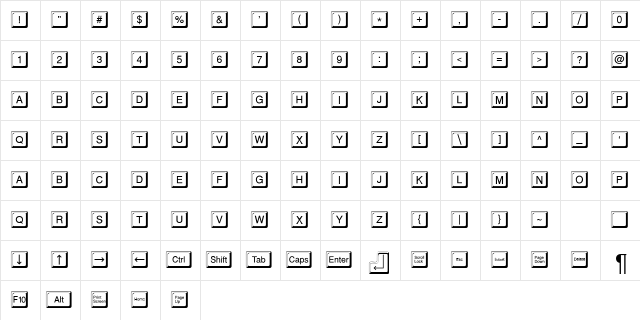
KeypressDB Normal
Design Context for KeypressDB Typeface
KeypressDB takes a measured approach to typography — its balanced proportions and neutral character make it a reliable workhorse for both digital and print work.